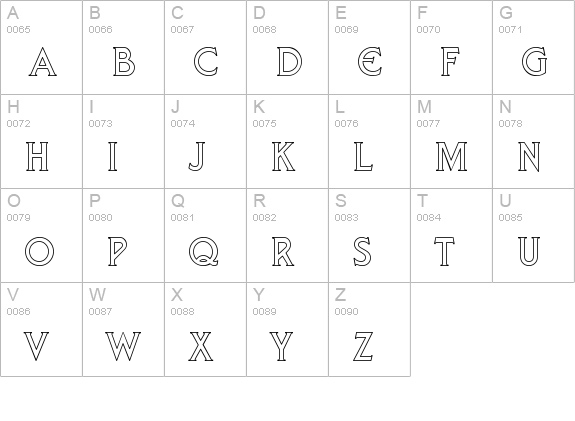
Introducing the captivating Trek DS9 Hollow font, a mesmerizing typeface that will transport you to the depths of space and beyond. This unique font is inspired by the iconic television series, Star Trek: Deep Space Nine, and is sure to delight fans and typography enthusiasts alike. The Trek DS9 Hollow font boasts a sleek and futuristic design, with each letter meticulously crafted to reflect the essence of the show's sci-fi universe. The hollowed-out look adds an extra dimension of depth, giving your text an otherworldly appearance that is truly eye-catching. What sets this font apart is not just its stunning visuals, but also the fact that it is available for free. Yes, that's right - you can now bring the essence of Deep Space Nine to your designs without spending a penny. Whether you're creating a poster for a Star Trek event, designing a website for a sci-fi convention, or simply adding a touch of intergalactic flair to your personal projects, the Trek DS9 Hollow font is the perfect choice. Downloading this font is as easy as a warp jump - simply head over to FontsMarket.com, where you can freely acquire the Trek DS9 Hollow font and start incorporating its celestial charm into your creations. With its seamless compatibility across various design software and platforms, this font ensures a hassle-free experience that will leave you with more time to explore the vastness of your imagination. So, what are you waiting for? Embark on an interstellar journey and unleash the power of the Trek DS9 Hollow font today. Let your words transcend the boundaries of the ordinary and embrace the infinite possibilities that lie in the cosmos. Download it now, free of charge, at FontsMarket.com and let your designs boldly go where no design has gone before.